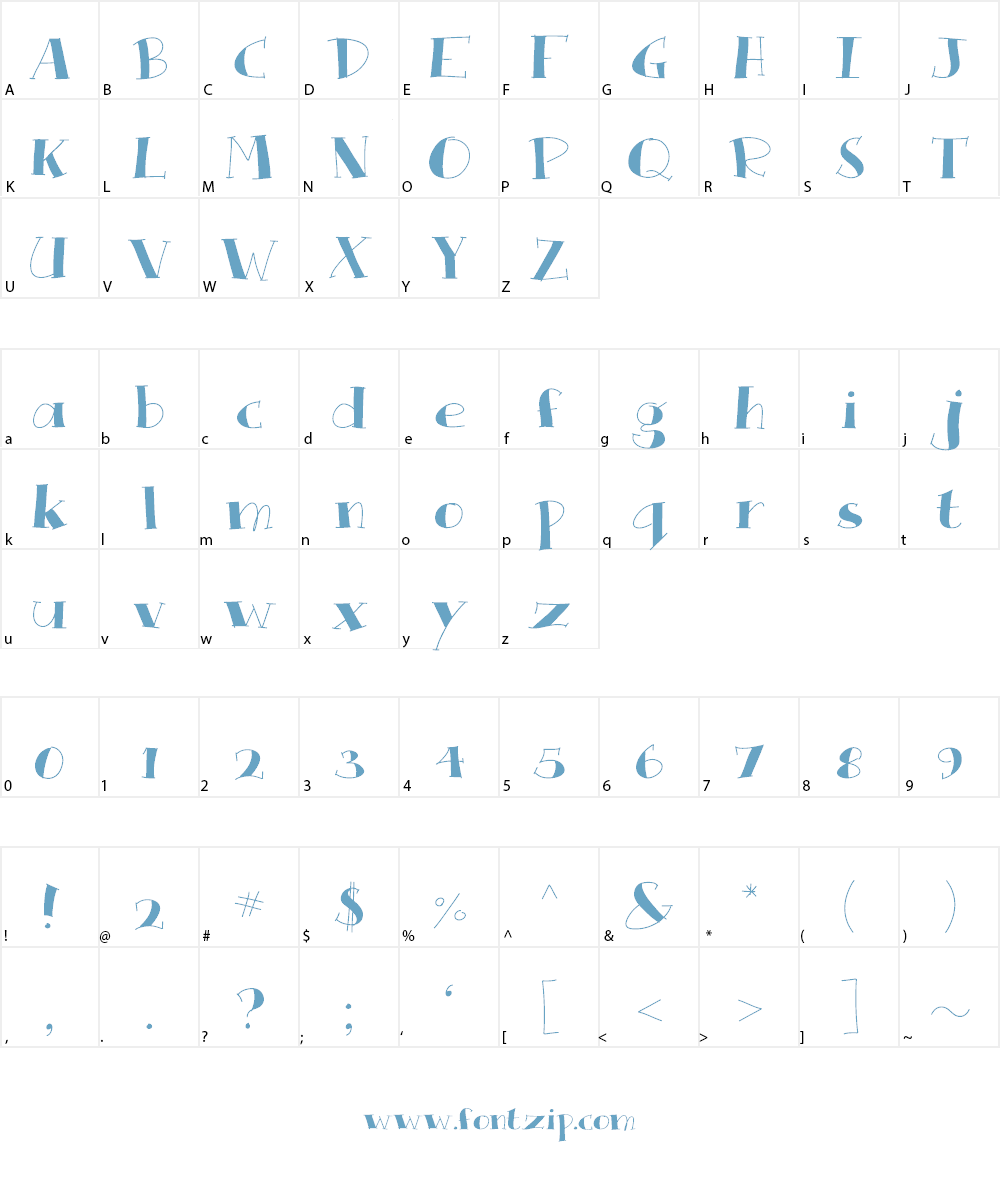
Cool thing: As with all my handwritten fonts, this font utilizes OpenType contextual and stylistic alternatives for a more realistic handwritten appearance.